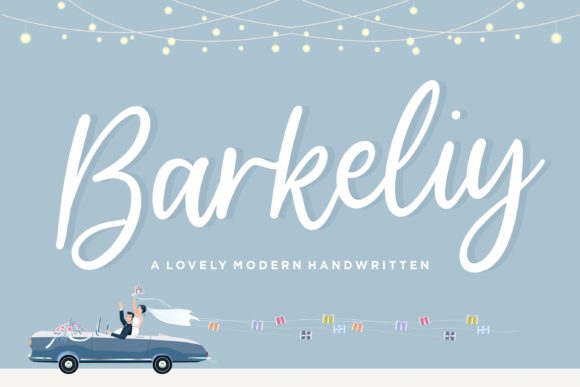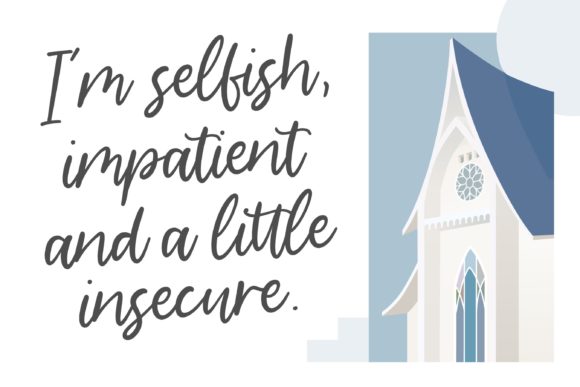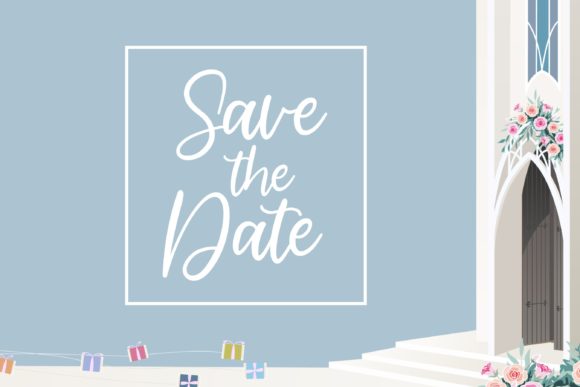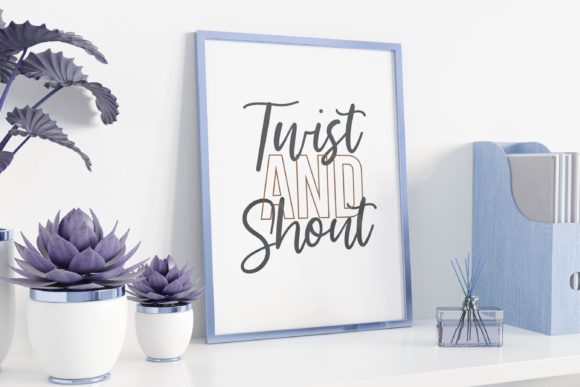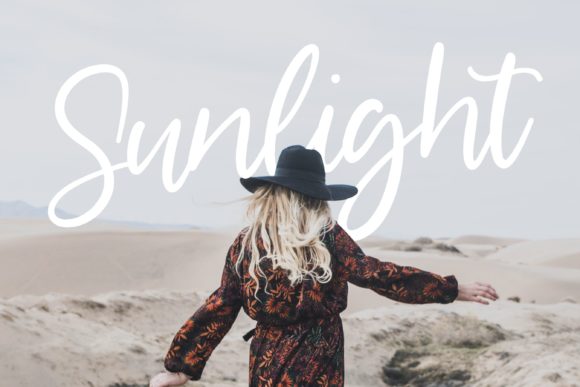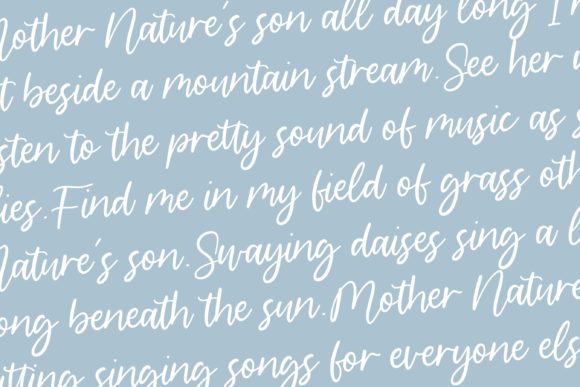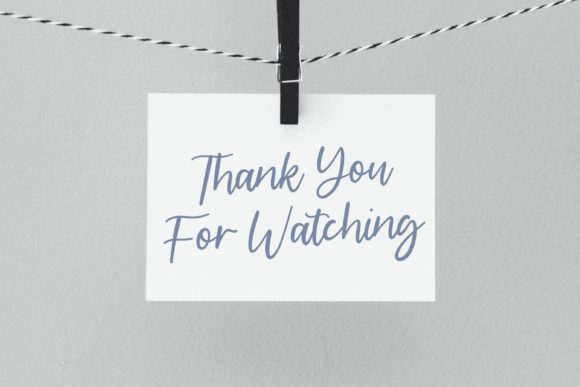
Barkeliy Font
About Barkeliy Font
Barkeliy feels distinct and delicate. This flowing handwritten font is the perfect choice for a wide variety of designs. Fall in love with its incredibly versatile style and use it to create gorgeous wedding invitations, beautiful stationary art, eye-catching social media posts, and much more!